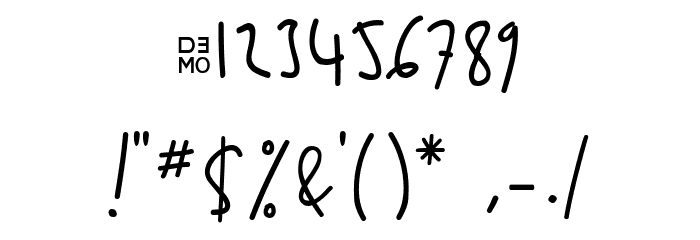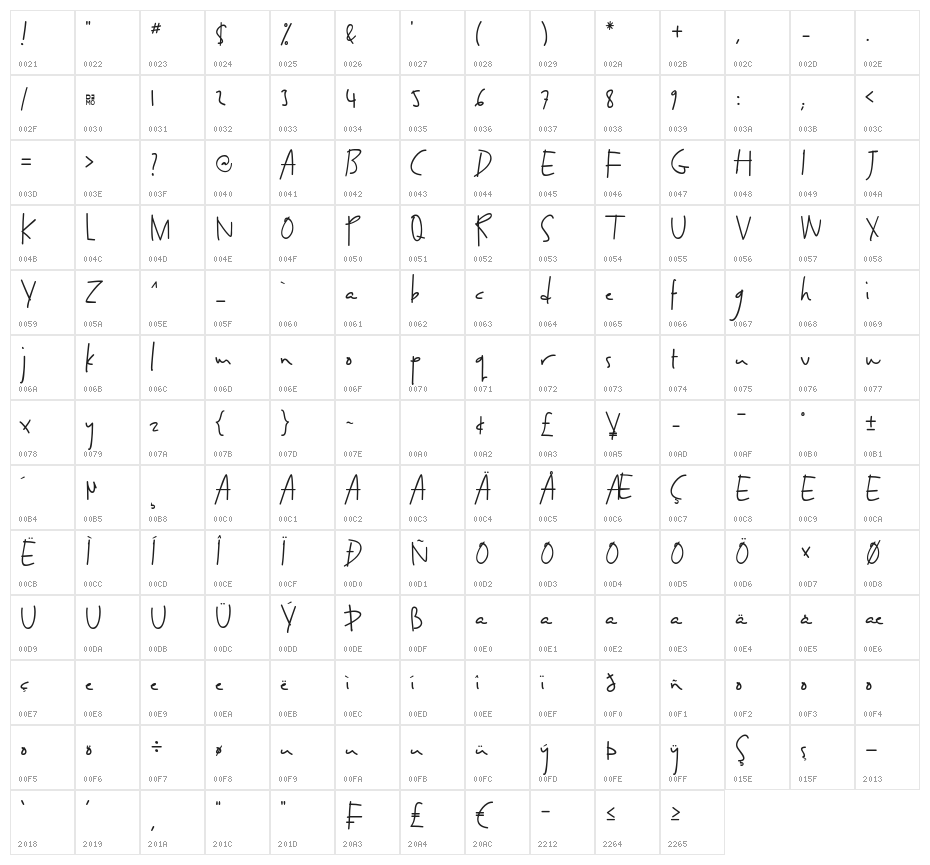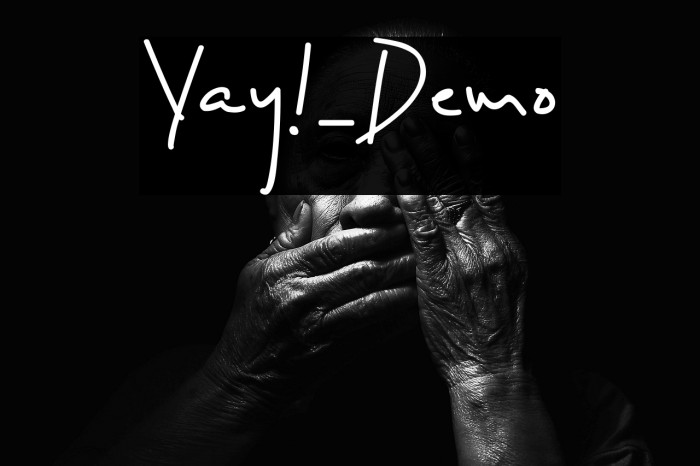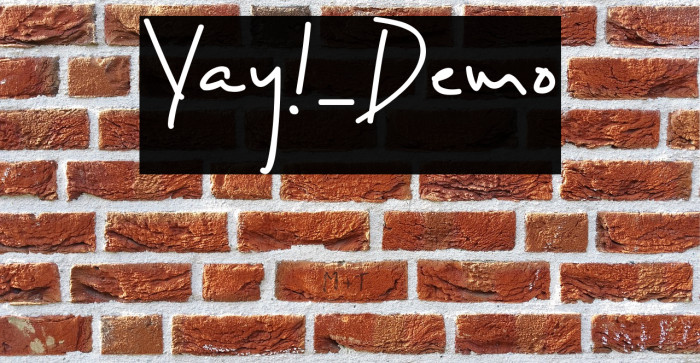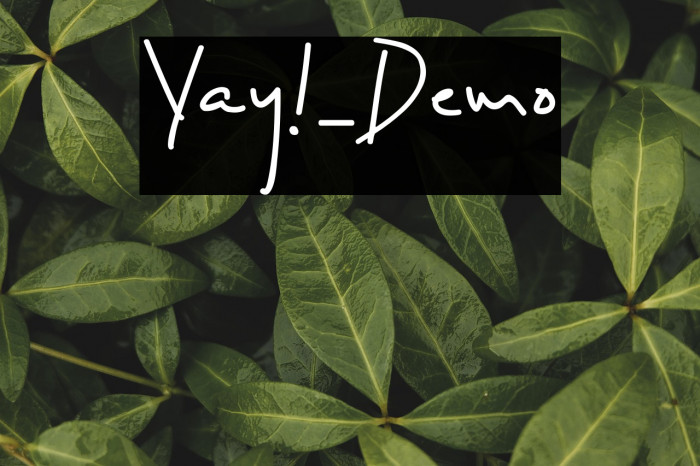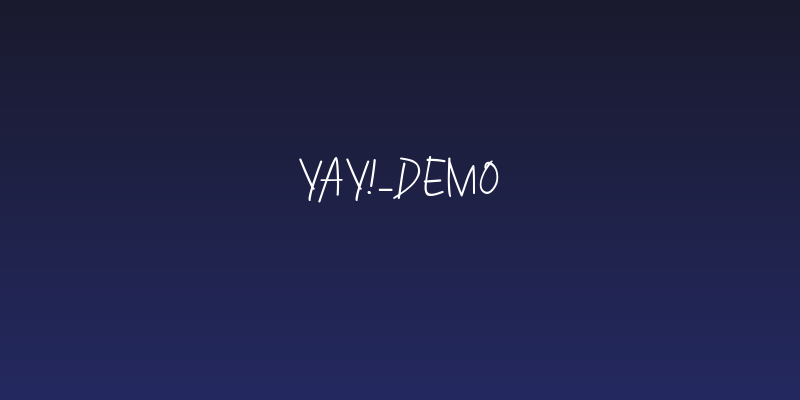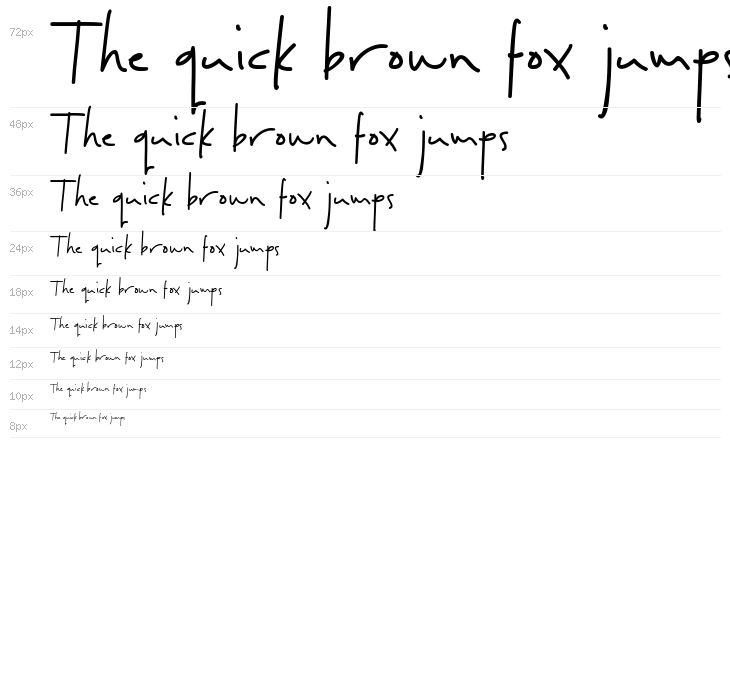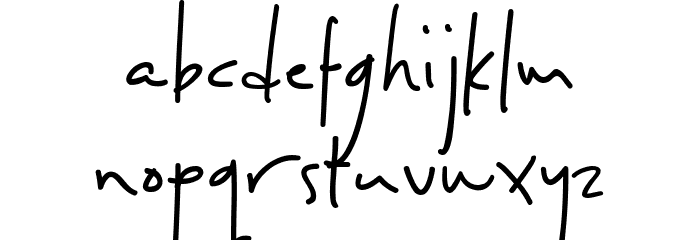
Yay!_Demo Font
Yay!_Demo Description
This font features a playful and casual handwritten style, characterized by its irregular strokes and organic flow. The uppercase letters are tall and slightly narrow, while the lowercase letters maintain a consistent, freeform appearance. The numbers and special characters complement the overall informal aesthetic, making it suitable for creative and informal projects. The strokes vary in thickness, adding a dynamic and lively feel to the text. This font captures a sense of spontaneity and personal touch, ideal for projects that require a humanistic and approachable vibe.